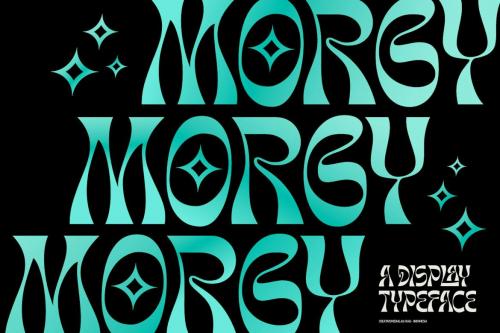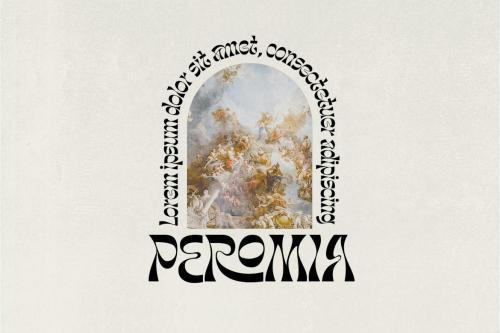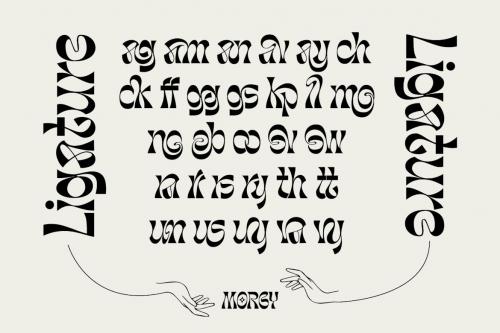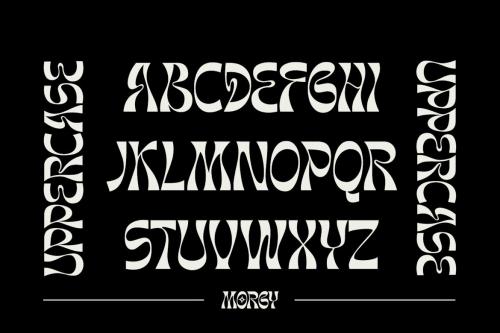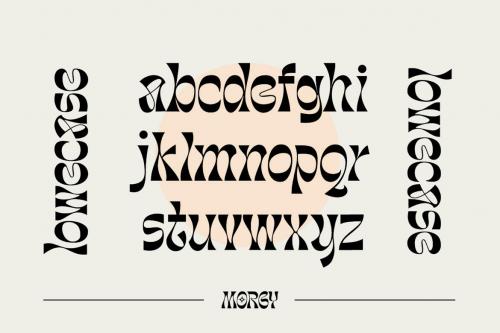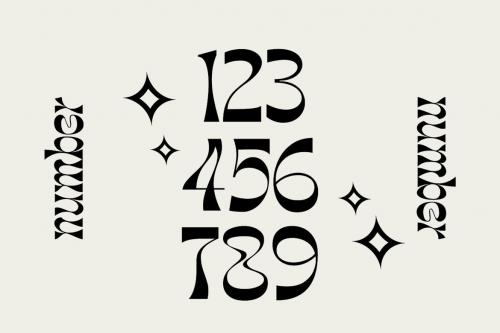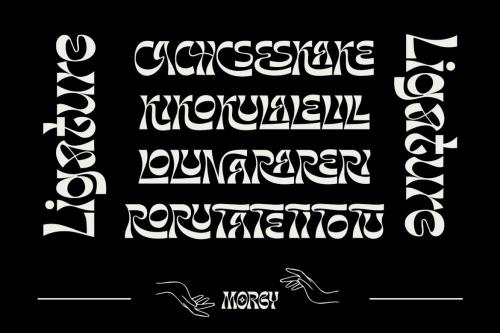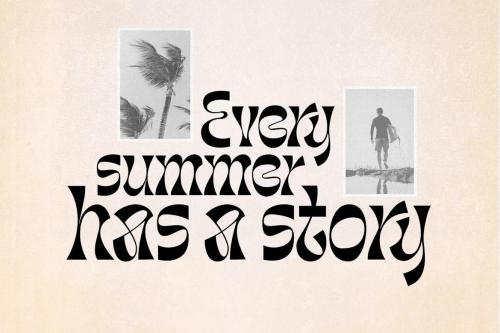
摩格字体
Morgy Font
Introducing Morgy a font that displays a cheerful and dynamic impression with 50+ ligatures and alternates suitable for all modern design concepts from posters to branding **to access alternate & Ligatures** * Adobe Photoshop go to Window - glyphs * Adobe Illustrator go to Type - glyphs
Introducing Morgy a font that displays a cheerful and dynamic impression with 50+ ligatures and alternates suitable for all modern design concepts from posters to branding